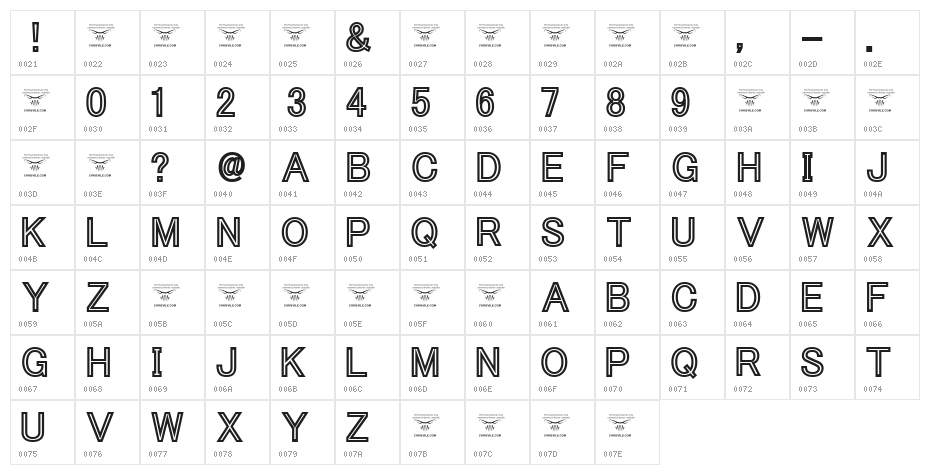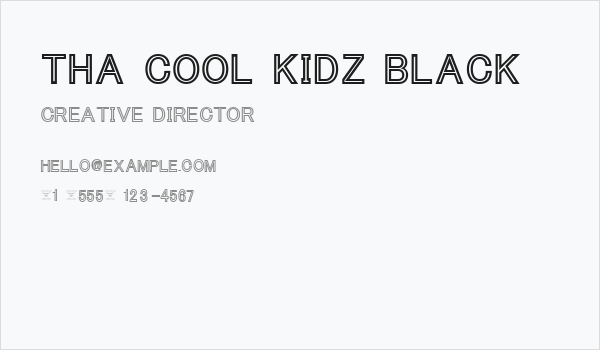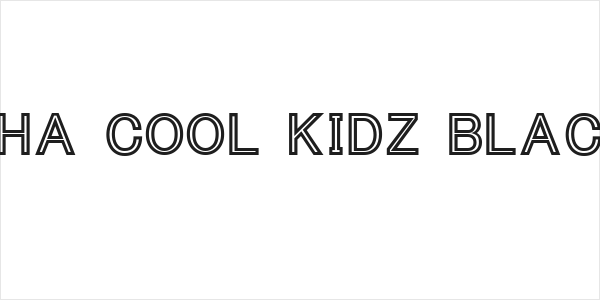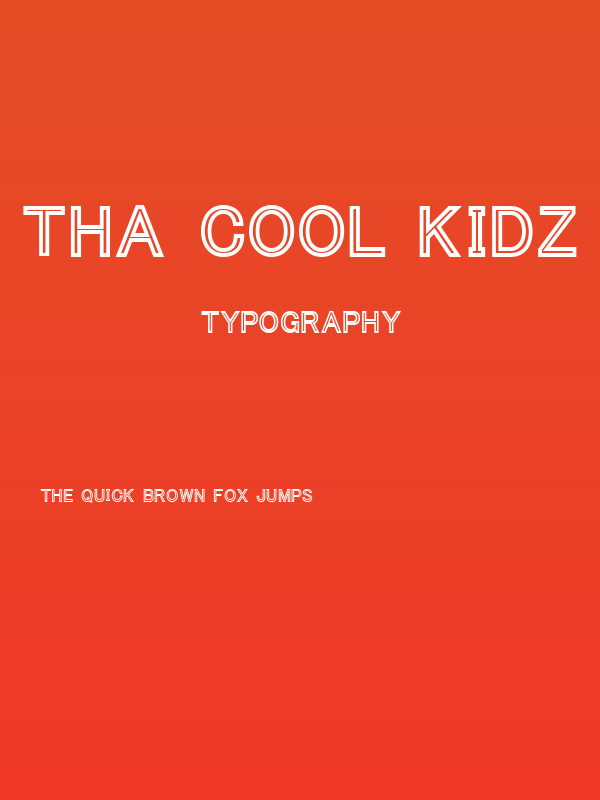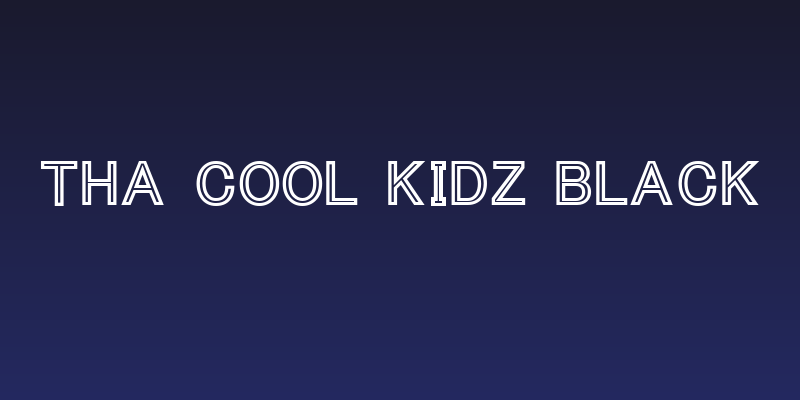
Tha Cool Kidz Black Font
Tha Cool Kidz Black Description
This font features a bold, outlined style with a modern and playful aesthetic. The characters are uppercase and lowercase letters, numerals, and a selection of special characters. The design is clean and geometric, with consistent stroke widths that create a uniform appearance. The outlined nature of the font gives it a unique, eye-catching look that stands out in various design contexts. The spacing between characters is normal, ensuring readability while maintaining its distinctive style.
| Proposed Projects | Ideal for children's book covers, playful branding, posters, and creative digital media. |